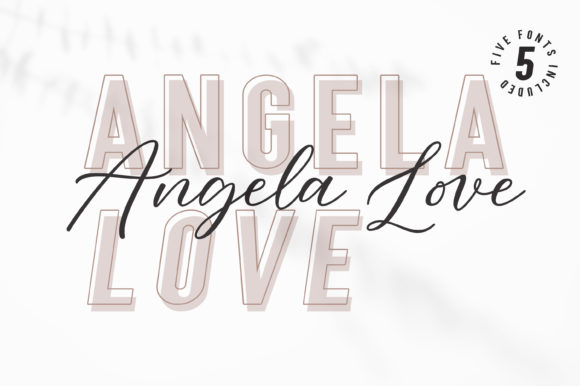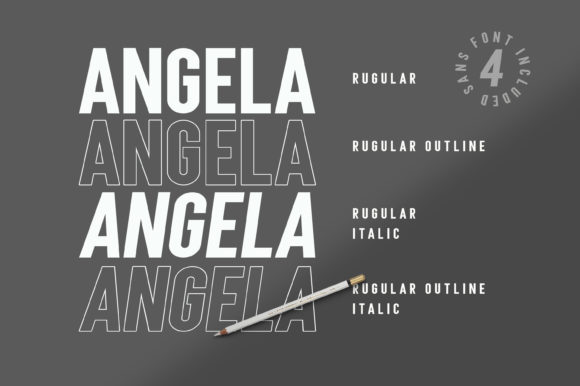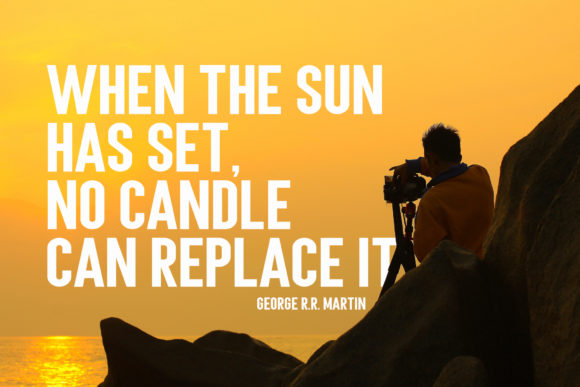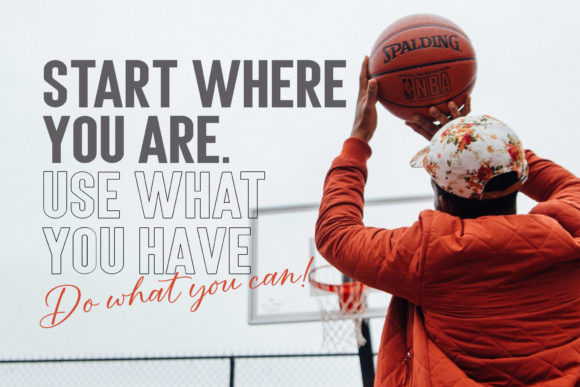
Angela Love Duo Font
About the Angela Love Duo Font
Introducing the Angela Love Duo Font, a beautifully crafted typeface designed to elevate your creative projects. Angela Love is a stunning combination of 5 fonts, each carefully designed to naturally complement one another. With 4 clean sans fonts and 1 modern script font, Angela Love gives you a hugely versatile collection of fonts – ideal for experimenting with striking & modern typographic designs in any context.
Angela Love excels in headline design, branding applications, and short-form text on posters or packaging. Its modern script adds a touch of elegance to logos and short taglines. However, the sans-serif styles are less suitable for extended body text or UI elements due to potential legibility issues in smaller sizes.
The core personality is sophisticated yet approachable; modern with a hint of playful charm. This makes it well-suited for brands targeting a younger, design-conscious demographic, or those wishing to project a fresh, stylish image.
Pairing Angela Love’s sans-serif fonts with a classic serif like Garamond for body copy creates a balanced contrast, while pairing the script with a clean geometric sans-serif like Futura adds a contemporary edge. Consider using a neutral sans-serif like Lato for supporting text to maintain visual harmony.
Angela Love Duo Font Usage Examples
Angela Love Duo Font Example